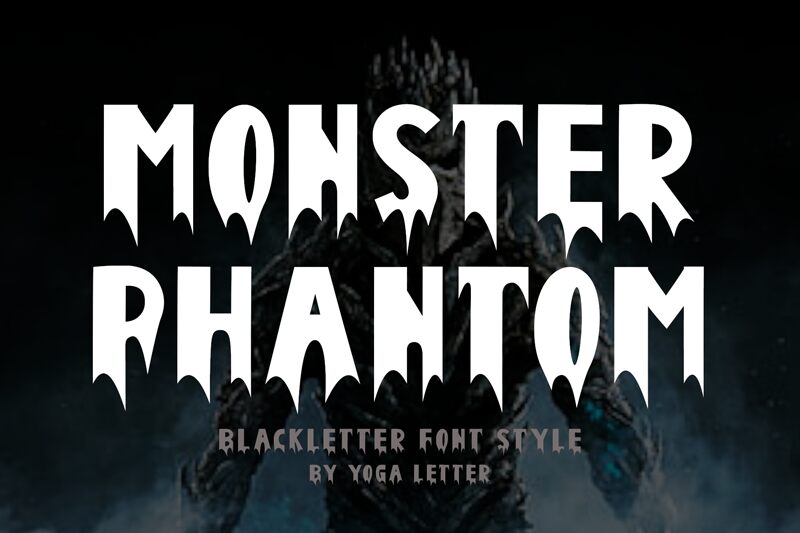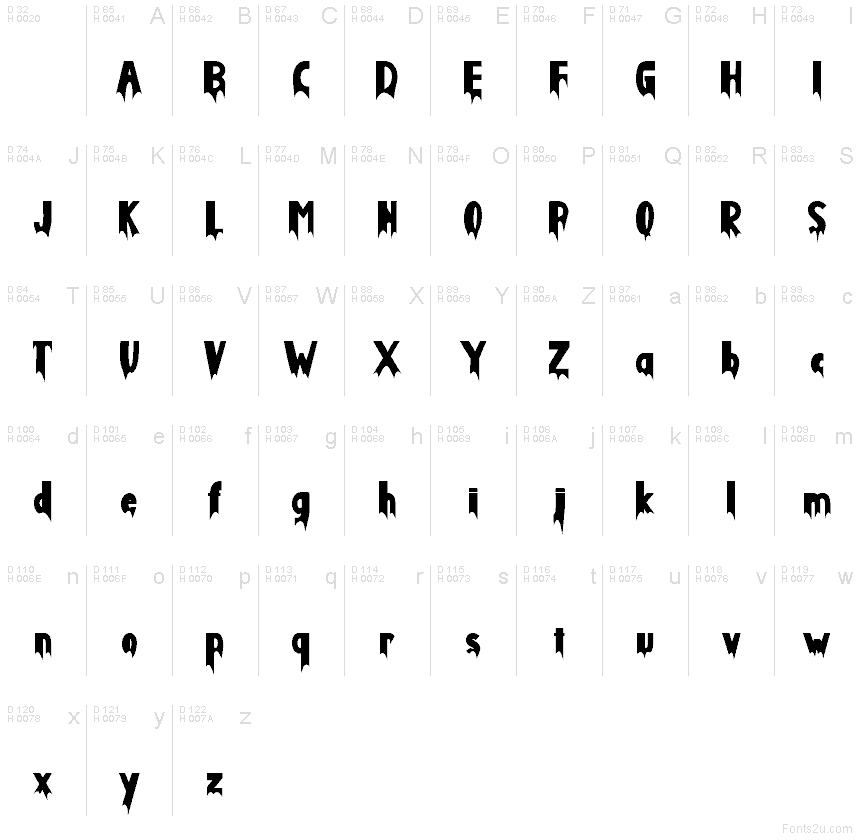
Monster Phantom
Monster Phantom font by Yoga Letter is a free Halloween display font. Its bold, inky forms rise like candle flames and taper into fang-like points, giving every word a shiver-on-the-spine silhouette. The letters lock together with a tight, steady rhythm, so headlines feel loud and legible while still dripping with eerie character—great when you need instant spooky mood without sacrificing clarity.
Using Monster Phantom, your haunted house posters, trick-or-treat flyers, party invites, horror podcast covers, seasonal merch, and YouTube thumbnails will scream on sight. This free font thrives at larger sizes where the spiky contours can breathe. For balance, pair it with a plain, condensed sans for body copy, and keep generous line spacing to let the shadows settle.